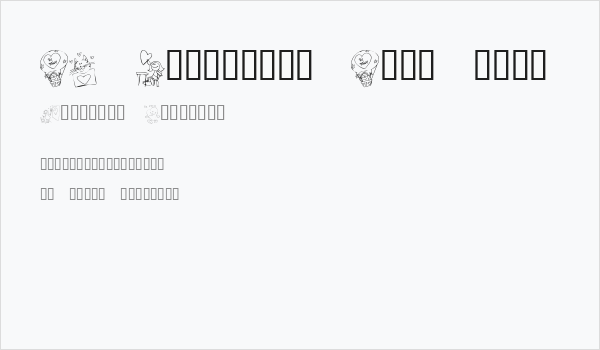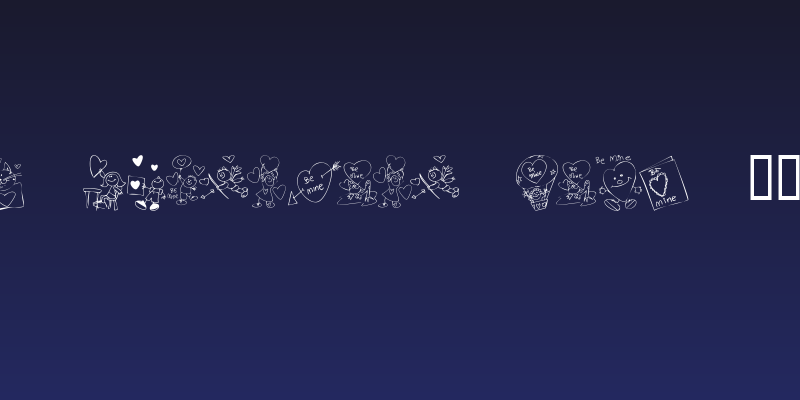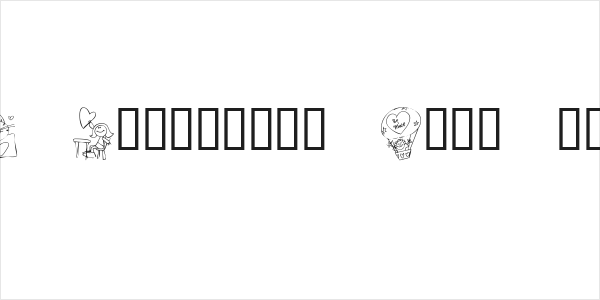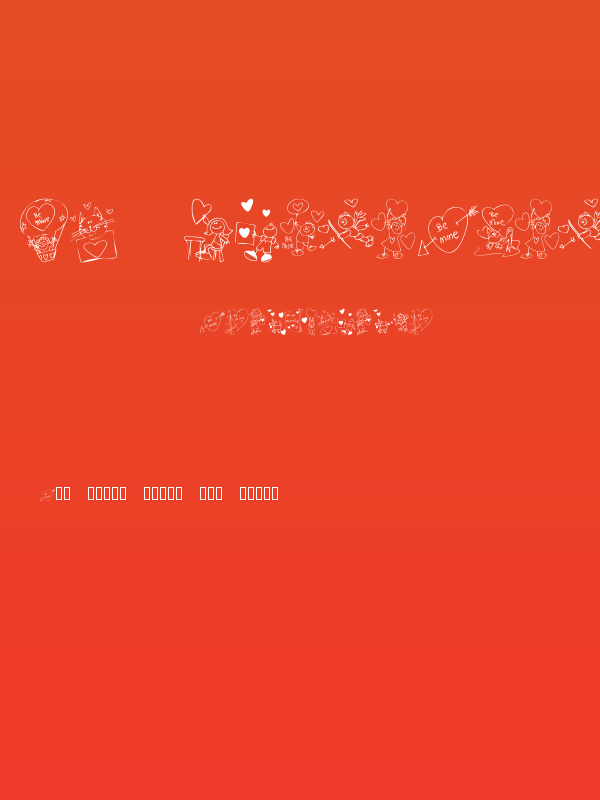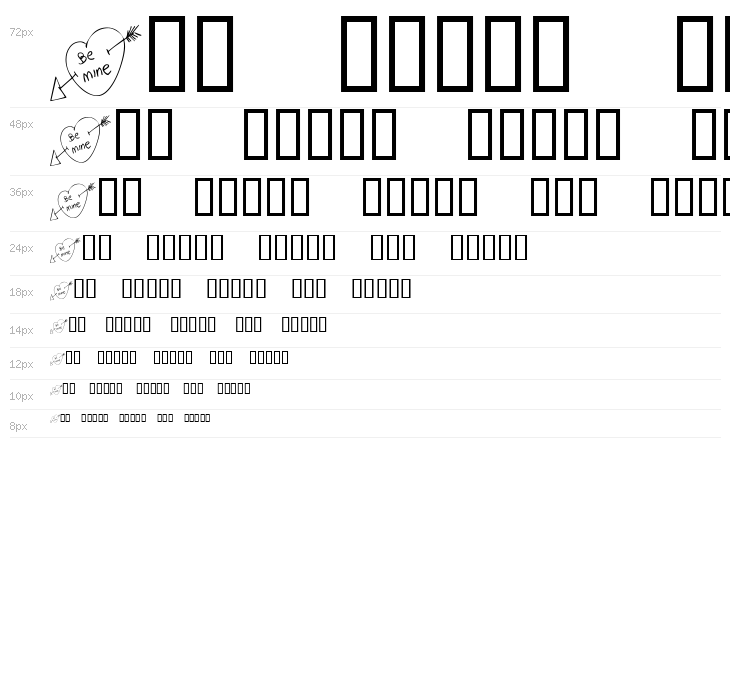
KR Valentine Kids 2006 Font
KR Valentine Kids 2006 Description
This is a playful and whimsical decorative font featuring charming illustrations of children and Valentine-themed elements. Each character is creatively designed with doodles that include hearts, balloons, and cute figures, making it ideal for projects that require a fun and lighthearted touch. The font captures a sense of innocence and joy, perfect for conveying messages of love and friendship. The hand-drawn style adds a personal and unique touch, making it stand out in creative projects. It's particularly suitable for children's materials, Valentine's Day cards, and any design that aims to evoke warmth and affection.
| Overall Style | Playful, Whimsical, Decorative |
| Use Case | Decorative elements, Greeting cards, Children's materials |
| Proposed Projects | Ideal for Valentine's Day cards, children's books, playful invitations, and festive decorations. |